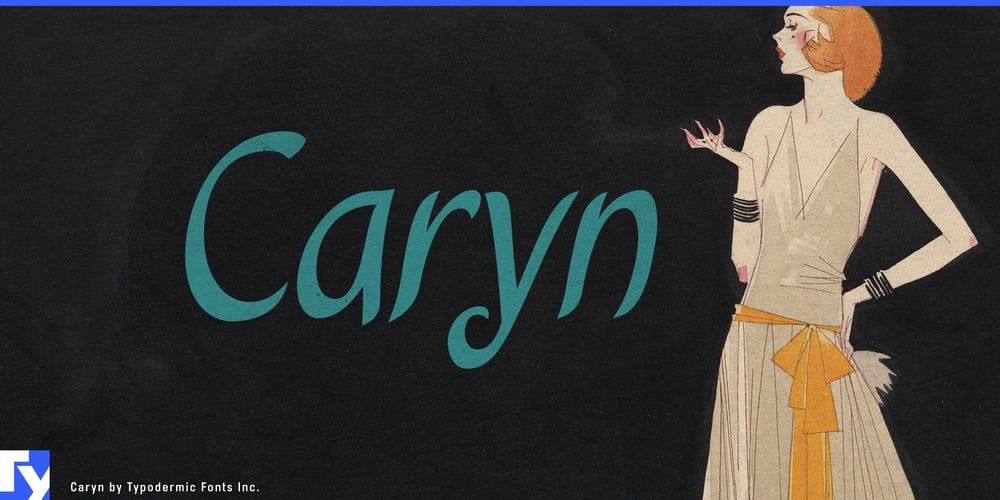
Caryn Font Family was designed by Ray Larabie and published by Typodermic. Caryn contains 2 styles and family package options. Folks, let me introduce you to Caryn, a typeface that’s as unpretentious as a hand-painted sign on a country road. This isn’t your fancy, big-city font with its nose in the air. No siree, Caryn’s got the charm of a well-worn pair of overalls and the warmth of a slice of homemade pie cooling on a windowsill.With her short brush strokes that look like they were painted by your neighbor’s steady hand, and swooping flourishes that dance like a summer breeze through a clothesline, Caryn brings a touch of down-home goodness to every word she touches. She’s not trying to impress anyone with complicated curves or razor-sharp edges. Instead, Caryn’s all about that honest-to-goodness, what-you-see-is-what-you-get kind of beauty. Now, don’t you worry about Caryn being too provincial. This friendly font speaks more languages than your worldly cousin who backpacked through Europe. From the rolling hills of Wales to the sun-baked plains of Hungary, Caryn’s got a way of making folks feel right at home, no matter where they’re from.Caryn’s not the type to put on airs or try to be something she’s not. She’s as comfortable on a church potluck flyer as she is on a quirky cafe menu. And the best part? You don’t need to be some highfalutin designer to make her look good. Caryn does all the heavy lifting, making your words look like they were lovingly crafted by hand, even if you’re all thumbs with a paintbrush.So if you’re looking to add a heap of homespun charm to your next project, give Caryn a holler. She’ll wrap your words in the typographic equivalent of a warm hug and a friendly smile, making everyone feel like they’ve just been invited to Sunday dinner. With Caryn, every message feels like it’s sealed with a heartfelt “Y’all come back now, y’hear?”